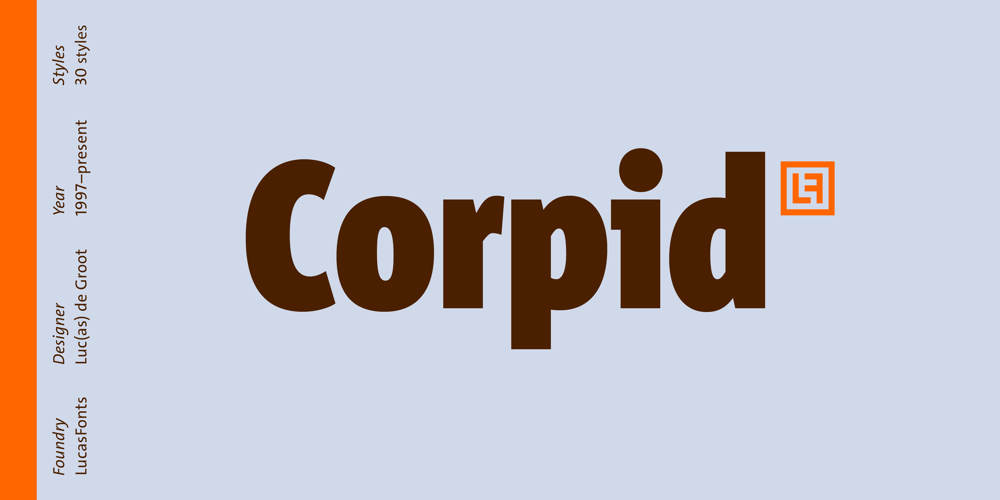
Corpid Font Family was designed by Luc(as) de Groot and published by LucasFonts. Corpid contains 34 styles and family package options. The name Corpid derives from “Corporate Identity” — which is what this family of low-contrast sans-serifs was made for. Corpid was originally commissioned by Studio Dumbar in the Netherlands as a corporate typeface for the Dutch Ministry of Agriculture, Nature Management and Fishing. The font was designed to replace the existing standard typeface (a well-known business-like sans-serif) to provide the organization with a unique and strong identity. Although it was designed to fit strict technical requirements, Corpid has a personality all of its own. This was in part a result of what Luc(as) calls “creating tension” between the inner and outer curves of each character. “I tend to put a little more diagonal contrast into fonts than is the case in most neutral sans serif fonts. This brings a certain humanistic touch to the typeface. Much more subtle here than in Thesis – but although it is almost invisible, it is still palpable.” Corpid was gradually expanded into a five-weight, three-width family. The new Corpid SemiCondensed has double functionality. It is a no-frills, compact headline font that offers optimum legibility in sizes from small to huge. It is also a great space-saving text typeface for magazines, newsletters or annual reports: economic, versatile, and provided with several different numeral sets. In this OpenType type version, all weights come with Small Caps. With its wealth of numeral styles and complete character sets (including Central European) the Corpid family is now well equipped to tackle the most complex of typographic tasks.